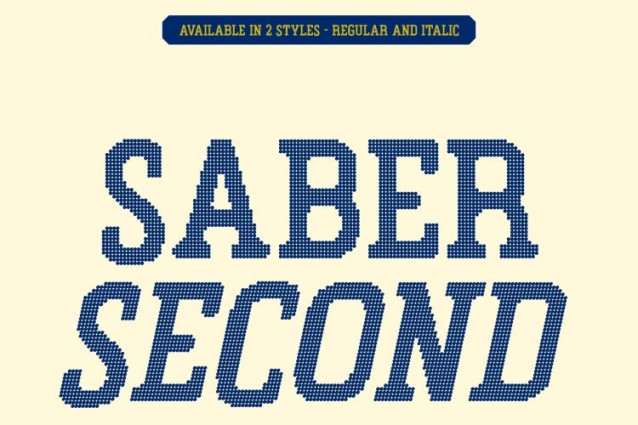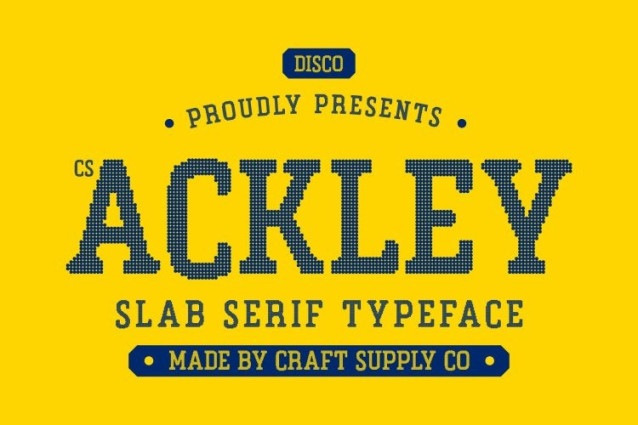
CS Ackley Disco Font
CS Ackley Disco Font This is a bold slab serif font designed to deliver a powerful industrial presence with confident visual weight. Its thick blocks, sturdy serifs, and solid construction create a commanding look that feels strong, dependable, and unmistakably bold. Every letter is built to stand firm and demand attention.
High Visibility with Disco-Inspired Impact
Engineered for maximum readability, this font performs exceptionally well in large-scale display use. Bold shapes and clearly defined letterforms remain sharp and legible from any distance perfect for headlines, posters, billboards, signage, and advertising. A subtle disco influence adds rhythm and visual energy, giving static layouts a dynamic, eye-catching presence.
Modern Strength for High-Impact Branding
With modern proportions and durable slab-serif structure, this font offers a rugged yet contemporary aesthetic. Its assertive style communicates reliability, confidence, and power, making it an excellent choice for logos, product packaging, and promotional designs that need a strong, authoritative voice with added excitement.
Ideal for Sports, Events, and Energetic Visuals
This font shines in sports branding and energetic design projects. From team identities and apparel graphics to event posters and scoreboard visuals, its bold stance amplifies intensity, motion, and competitiveness. The fusion of industrial strength and disco energy ensures every design feels modern, powerful, and ready for action.